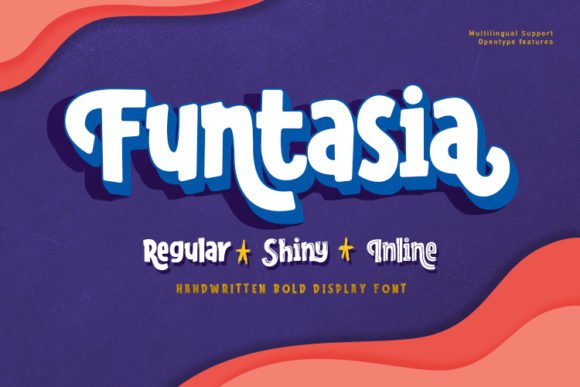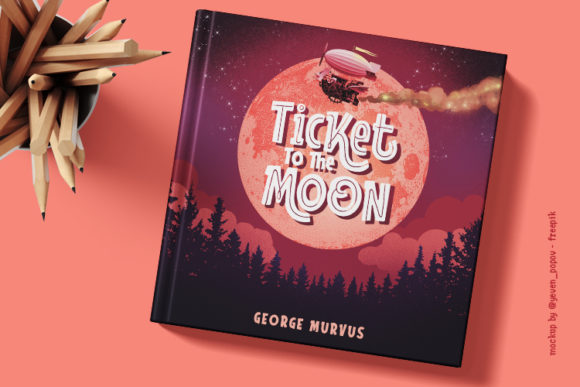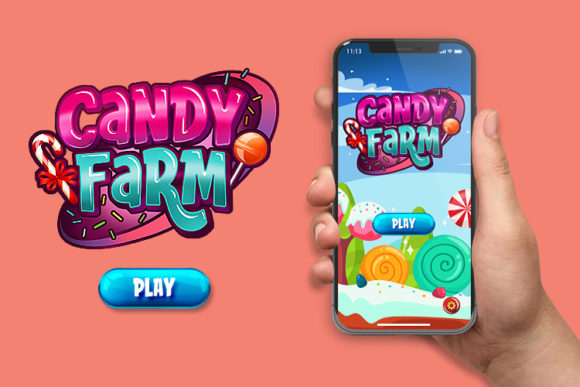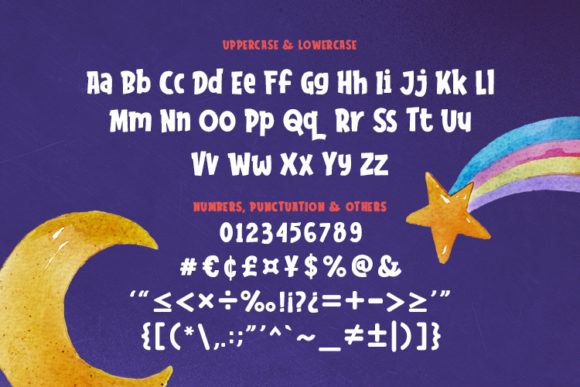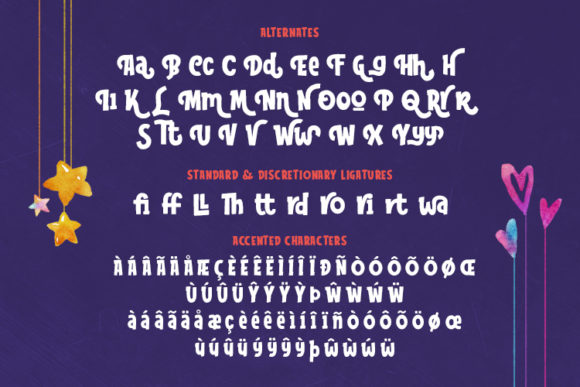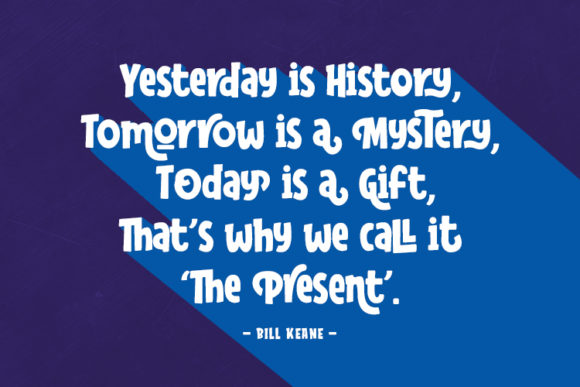
Unlock the Fun with Funtasia Font
Have you ever stared at a blank page, waiting for that perfect font to spark your creativity? For designers, the right font can make all the difference between a good design and a great one. It’s in those moments that we stumble upon a font that speaks to us, and our imagination starts to run wild.
That’s exactly what happens when you discover the Funtasia Font. This bold, modern font is designed to bring a playful touch to your designs. With its clean letters and simple aesthetic, it’s perfect for anyone looking to add a touch of fun and whimsy to their work. Whether you’re creating a logo, poster, or social media graphic, Funtasia Font is sure to bring a smile to your face and make your design stand out.
Funtasia Font Key Features
- Font Family: Funtasia Font is a digital font designed for use in various applications, including digital art, graphic design, and publishing.
- Character Set: Includes a wide range of characters, including uppercase and lowercase letters, numbers, punctuation marks, and special characters.
- Unique Characteristics: Funtasia Font features a playful and whimsical design, with bold lines, rounded shapes, and a vibrant color palette, making it ideal for creating eye-catching and engaging visual content.
Funtasia Font Review
As a designer, I’ve had the chance to work with various fonts, and I must say that Funtasia Font is quite an interesting addition to the family. Here’s my honest take on it:
- Unique Personality: Funtasia Font has a playful, whimsical feel to it, which makes it perfect for projects that require a touch of fun and creativity.
- Wide Range of Applications: This font is versatile and can be used for both digital and print media, from logos to signage and even children’s books.
- Easy to Read: Despite its playful nature, Funtasia Font is surprisingly easy to read, even in smaller font sizes.
- Limited Legibility in Small Text: While Funtasia Font is easy to read in larger font sizes, it can become somewhat difficult to read when used in small text sizes.
- May Not Suit Formal Projects: Due to its playful nature, Funtasia Font may not be the best choice for formal projects, such as business reports or academic papers.
Funtasia Font is a fun and versatile font that can add a playful touch to various projects. While it may have some limitations, it’s definitely worth considering for creative projects or applications where a touch of whimsy is needed.